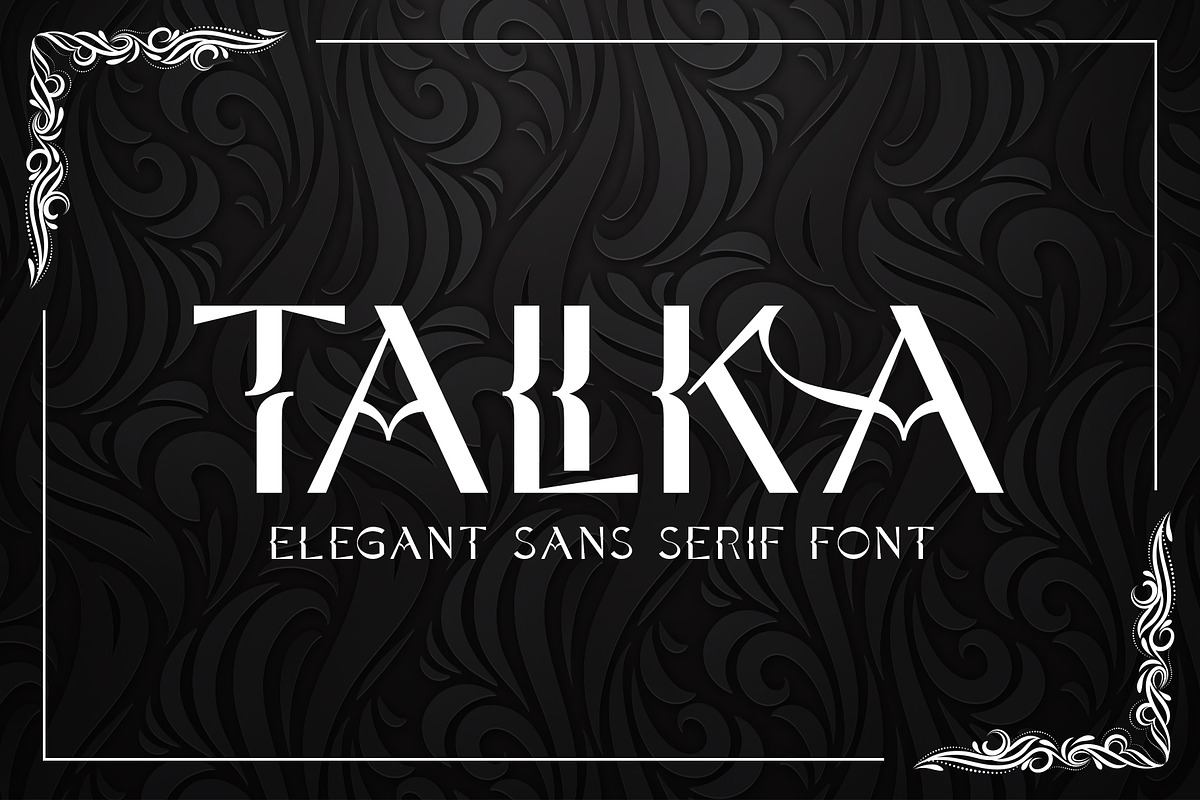
Talika Sans Serif Font Free Download
Talika Sans Serif Font Free Download is a clean, minimalist typeface designed for clarity, elegance, and modern versatility. With its sleek lines and balanced proportions, Talika is perfect for branding, user interfaces, editorial design, packaging, and corporate communications.
Its simplicity ensures high readability across all screen sizes and print formats, while its subtle sophistication makes it ideal for everything from startup logos to fashion magazines. Whether you're building a website, designing a presentation, or crafting a sleek business identity, Talika delivers professionalism with style.